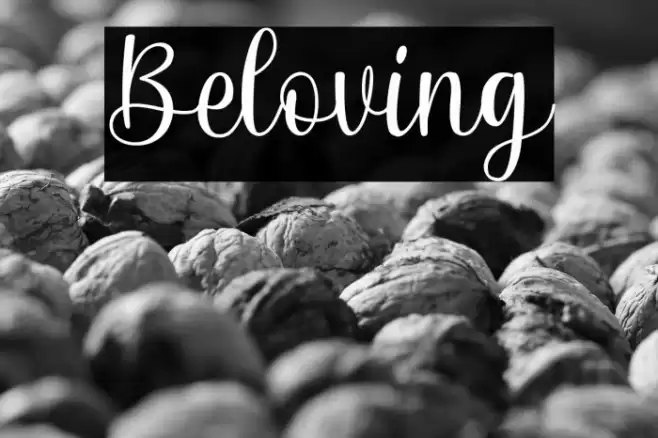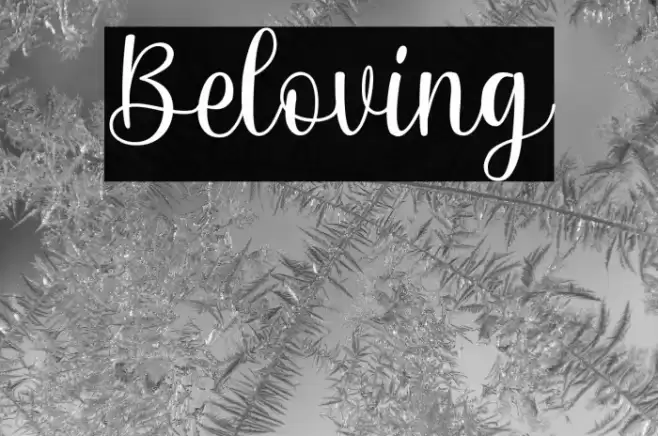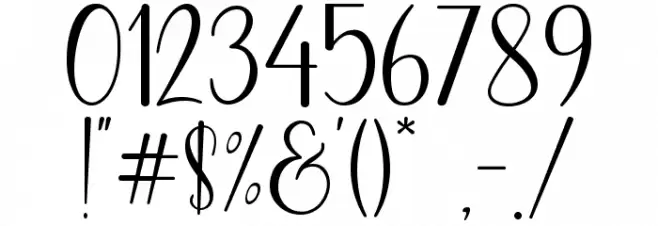
Beloving Font
Beloving Description
This font exudes a charming and playful elegance, characterized by its flowing, cursive style. The uppercase letters are tall and slender, with graceful loops and swirls that add a touch of whimsy. The lowercase letters maintain a consistent flow, with smooth connections between each character, enhancing readability while preserving a handwritten feel. The numerals are clear and distinct, complementing the overall style with their slightly rounded forms. Special characters are thoughtfully designed, maintaining the font's cohesive aesthetic. This font is perfect for projects that require a personal touch, such as invitations, greeting cards, or branding materials that aim to convey warmth and creativity.
A charming, cursive font with elegant loops and a playful handwritten style from Regular fonts.
- Font: Beloving
- Proposed Projects: Ideal for wedding invitations, greeting cards, personal branding, and creative projects.
- Use Case: Headlines, Logos, Invitations